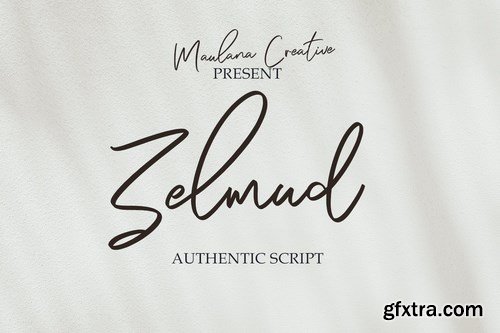
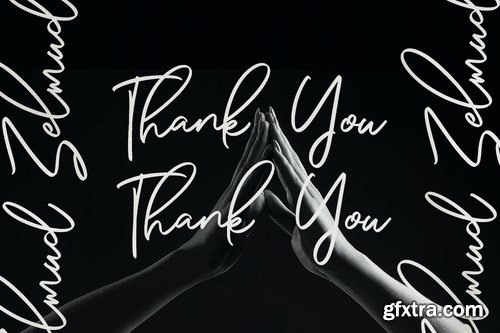
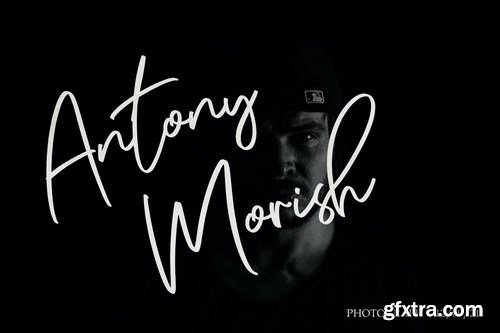
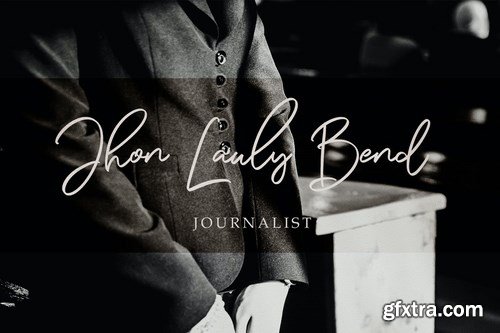
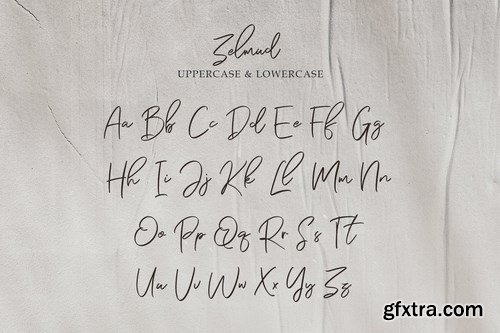
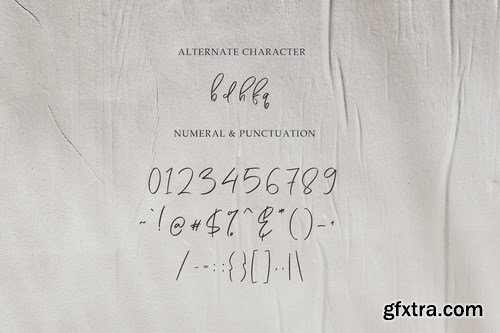
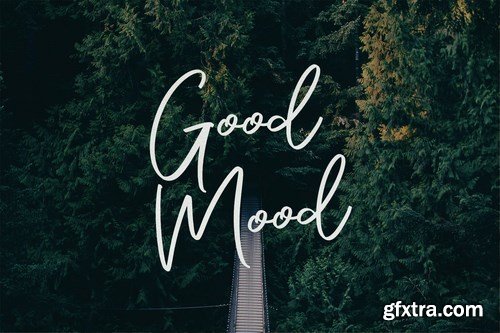
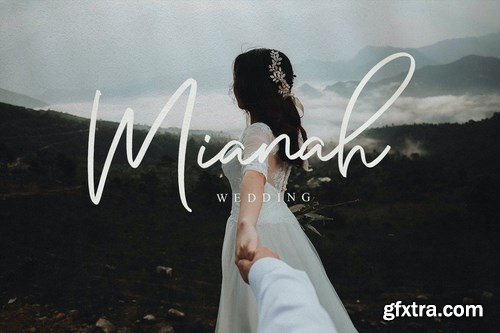
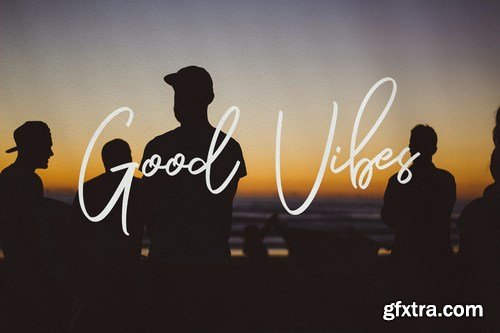
Zelmud Authentic Script Font is an expressive signature script font. With regular felt-tip stroke, fun character with some of ligatures and extra swash. To give you an extra creative work. Zelmud Authentic Script Font support multilingual more than 100+ language. This font is good for logo design, Social media, Movie Titles, Books Titles, a short text even a long text letter and good for your secondary text font with sans or serif. Make a stunning work with Zelmud Authentic Script Font.
Frank Casual Signature Font is a modern feminine script font. With regular contrast stroke, fun character with some of ligatures. To give you an extra creative work. Frank Casual Signature Font support multilingual more than 100+ language. This font is good for logo design, Social media, Movie Titles, Books Titles, a short text even a long text letter and good for your secondary text font with sans or serif. Make a stunning work with Frank Casual Signature Font.
Rockybilly font is a super handwritten brush font bursting with energy. It features extra attention to quick strokes and sharp details. This font is PUA encoded which means you can access all of the glyphs with ease!
NightAngel - Blackletter Display Font contains a lowercase, uppercase, symbol, and also supports multi-language. There’s a lot of ligature in this font. NightAngel - Blackletter Display Font also comes with ligatures, stylistic alternates and many more. this font suitable for fashion, branding, catalog and other design that you want.
Brighton Font
Brighton is a stylish and uniquely designed handwritten font. It looks stunning on wedding invitations, thank you cards, quotes, greeting cards, logos, business cards and more. This font is PUA encoded which means you can access all of the glyphs and swashes with ease!